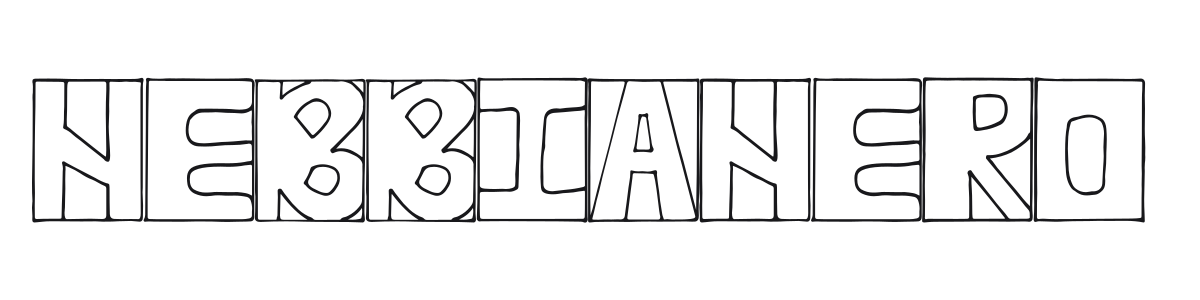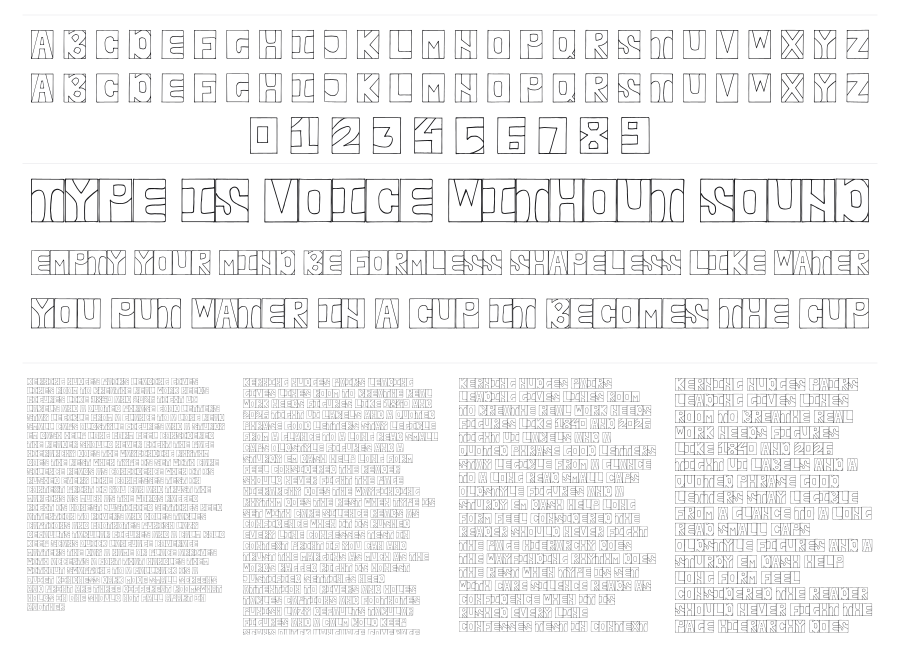
Nebbianero
NebbianeroLicense is a chunky outline display font where every character sits inside its own rectangular box, like tiles on a vintage sign. The rounded strokes and irregular character widths give it a handmade, retro-1970s energy. It draws attention at large sizes and suits casual branding, posters, and packaging with personality.